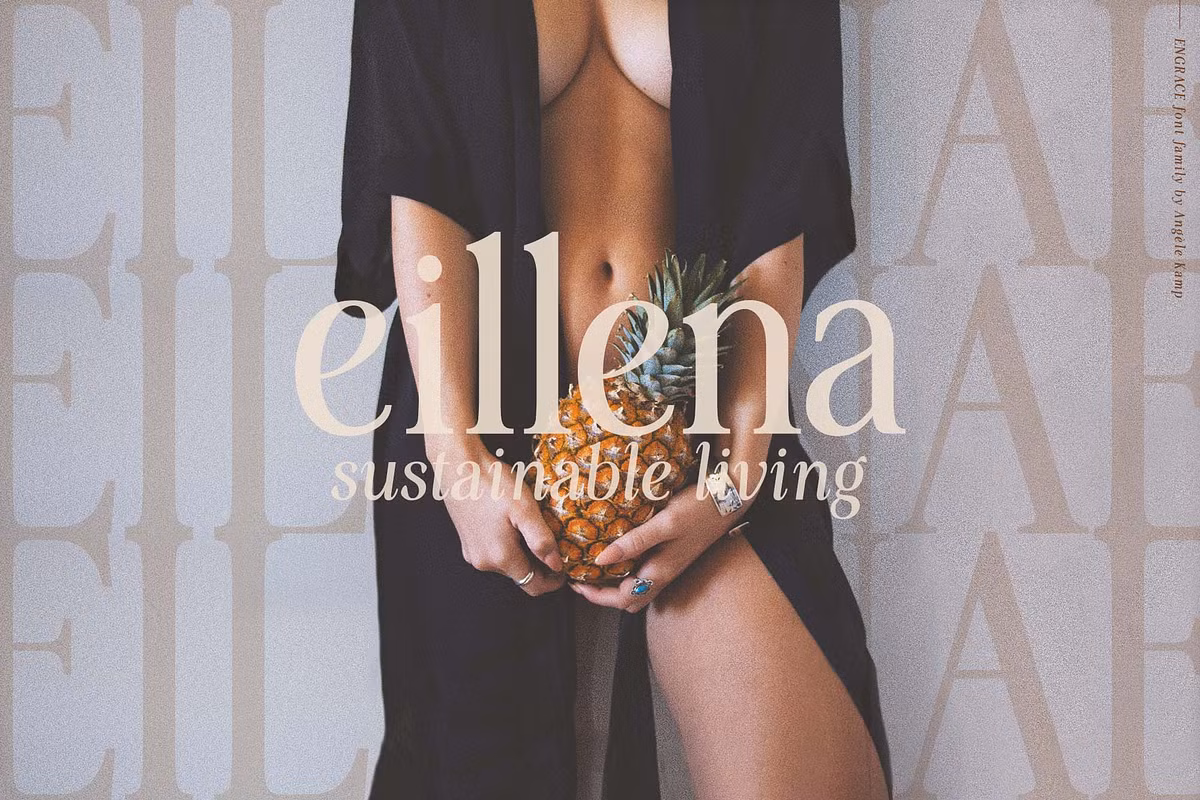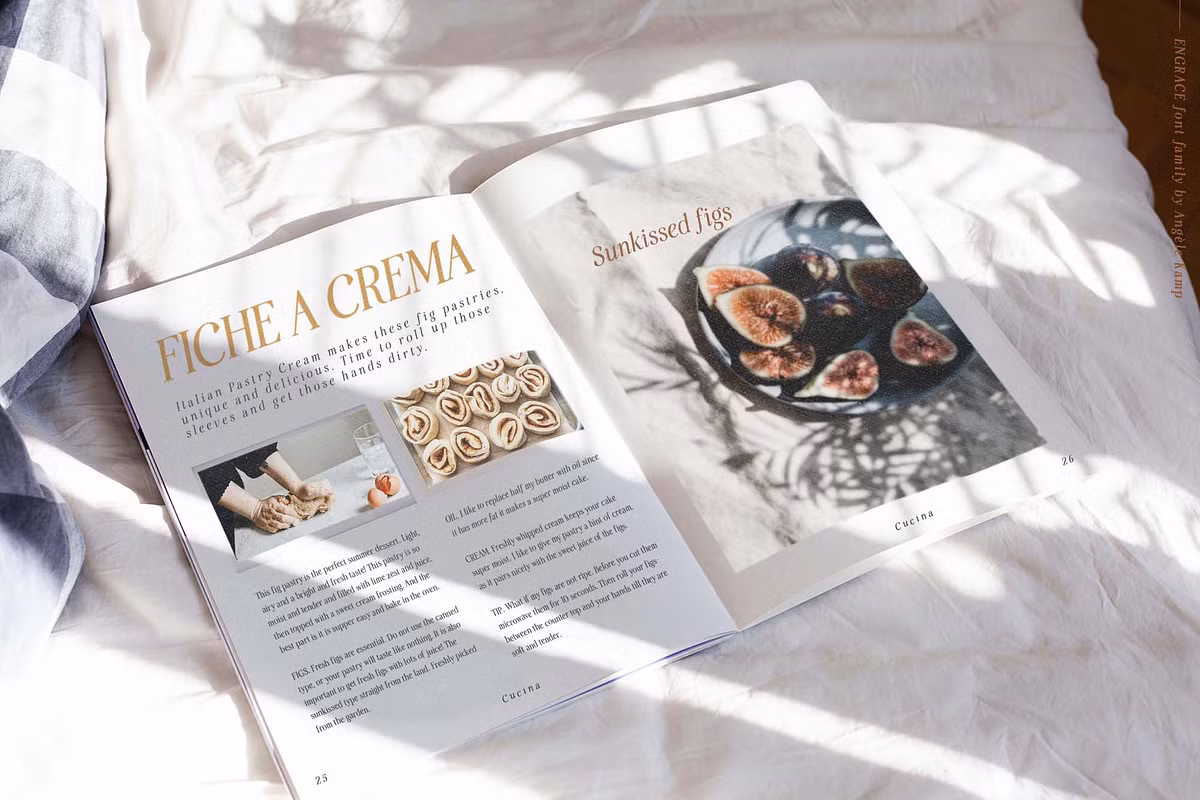
Engrace Serif Font Family Free Download
Serif Font Family: Make Your Design Projects Better Today
Do you need a font that feels elegant, modern and a little romantic? Try Engrace. Engrace is a serif font family. Engrace has curves and the clean look. Engrace can lift the design projects. Give the typography a feel. I have used Engrace in my work and Engrace fits well with styles. Engrace is an addition, to any font collection.
What to Expect from the Engrace Font Family
I designed the Engrace font family to be flexible. Here is what you can expect:
- 8 Fonts: I see that the family contains eight fonts. I also see that 8 Different Fonts include italic versions.
- 4 Weights: I can choose Light, Regular, Medium or Bold. The weight I choose works, for any project.
- Variable Font Option: The Engrace font family has a font. The variable font lets you change the weight easily.
The comprehensive set gives you the style and weight for any design scenario. The comprehensive set works for invitations. The comprehensive set works for branding. The comprehensive set works for projects.
Why Choose Engrace?
Engrace is not another font. Engrace mixes a look, with style. I have a reasons to choose Engrace for my next design project:
- Timeless Elegance: I like the curves and stylish details of Engrace. Engrace is a choice, for projects that need a touch of class. Engrace works well in settings.
- Versatile Use: I use Engrace when I design the wedding invitations the business cards or the social media graphics. Engrace works well in each of those contexts.
- Modern Aesthetic: Engrace modern design keeps Engrace visible, in the design world. I see Engrace modern design makes the work more attractive and engaging. Engrace modern design works well.
- Works Well in Pairings: Engrace works with the sans-serif fonts. Engrace helps you create contrasts, in the typography.
Meet the Designer: Angele Kamp
The creative mind, behind Engrace is Angele Kamp. Angele Kamp is a designer who loves florals, watercolors and hand lettering. The style of Angele Kamp shows an elegance that feels modern and timeless. Angele Kamp draws inspiration from nature. The designs of Angele Kamp are beautiful, warm and classy. I have seen the work of Angele Kamp. I feel the love for nature, in each piece.
Angele has designed for clients, around the world. Angeles work has appeal everywhere. Angele focuses on the colors and the detailed floral illustrations and Angeles fonts become the art pieces, not just the tools. I have used Angeles fonts. Angeles fonts made my projects look better.
Practical Tips for Using Engrace in Your Designs
To get the most, out of the Engrace font family try these tips:
- Experiment, with Weights: Do not hesitate to mix weights in the design. Mixing weights in the design creates hierarchy. Mixing weights in the design draws attention to parts.
- Use Italics, for Emphasis: I like to use the italicized versions of Engrace to add an emphasis to quotes or important information, in my designs.
- Pair Wisely: Combine Engrace, with a clean sans-serif font. Engrace and the clean sans-serif font create a look that draws the eye but does not overwhelm the viewer.
- Consider Legibility: Make sure the text is legible especially when the text’s small. Test weights. Test sizes. Find the weights, for the layout. Find the sizes for the layout.
Conclusion: Elevate Your Designs with Engrace
Add the Engrace serif font family to your design toolkit. I use the Engrace font family in my projects. I see that the Engrace font family mixes simple style, flexibility and a modern look. Engrace can change a design into a piece. Whether you are a designer or a beginner Engrace can help your work.